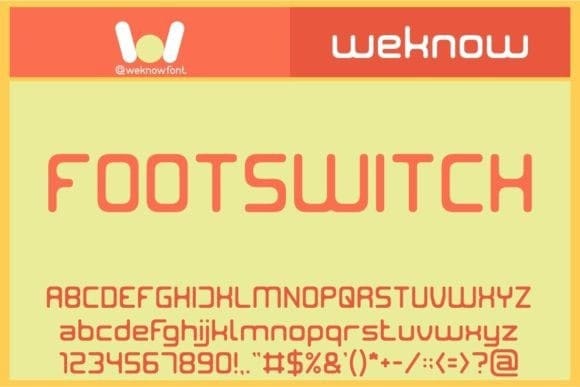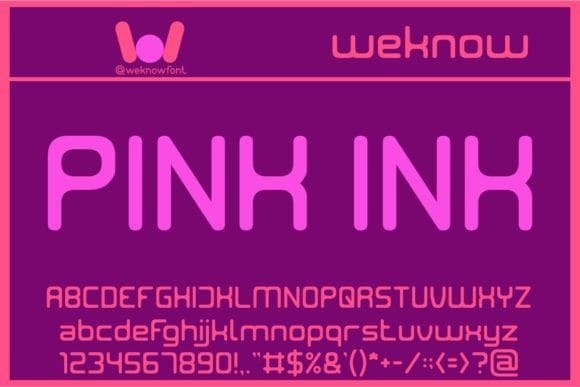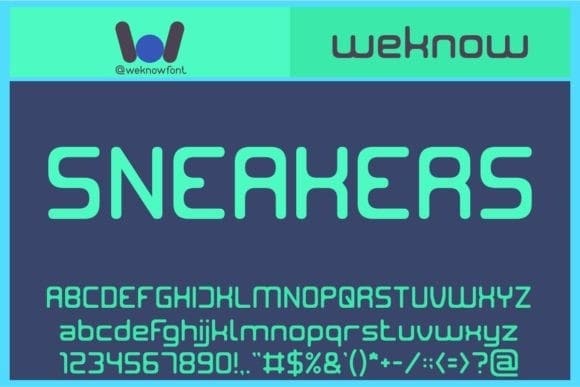
Sneakers Display Font
Sneakers Display Font, is a modern and cool display font. Trendy and incredibly versatile, this font is suitable for a wide range of projects that require bold yet casual typography.